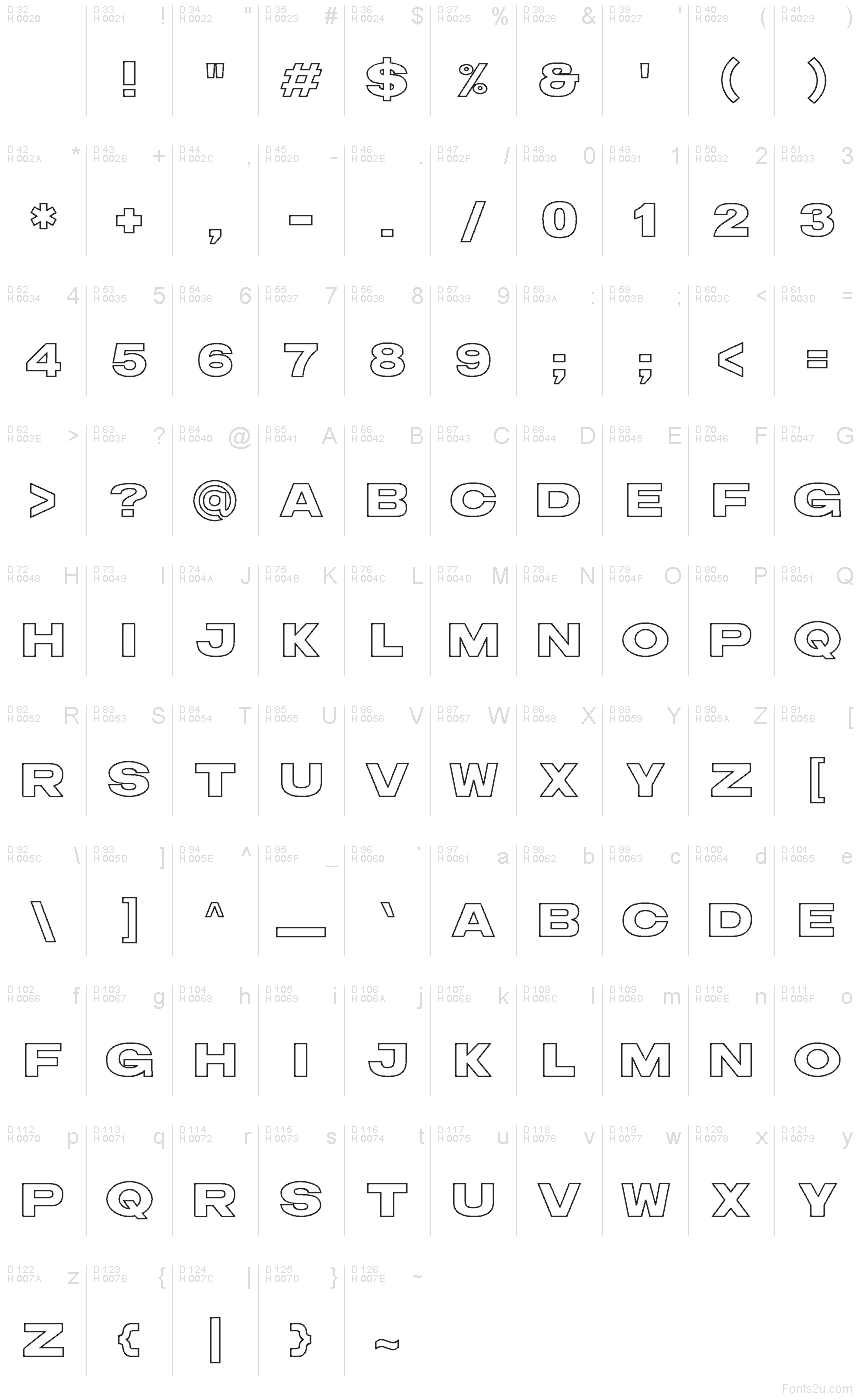
Goride Sans Outline
Goride Sans Outline font by The Branded Quotes is a bold, expanded, modern display typeface. Its clean lines and contemporary aesthetic both capture attention and maintain readability across different platforms. A balance of boldness and clarity is achieved effortlessly with minimalistic geometric elements that open up the font’s beautiful structure.
This free expanded sans serif font is ideal for projects like video thumbnails, posters, advertisements (social media or offline), magazines, band covers, logos as well as titles and captions from online blogs to newspapers. Its stylish yet functional character makes it a great versatile choice for promotional materials too.